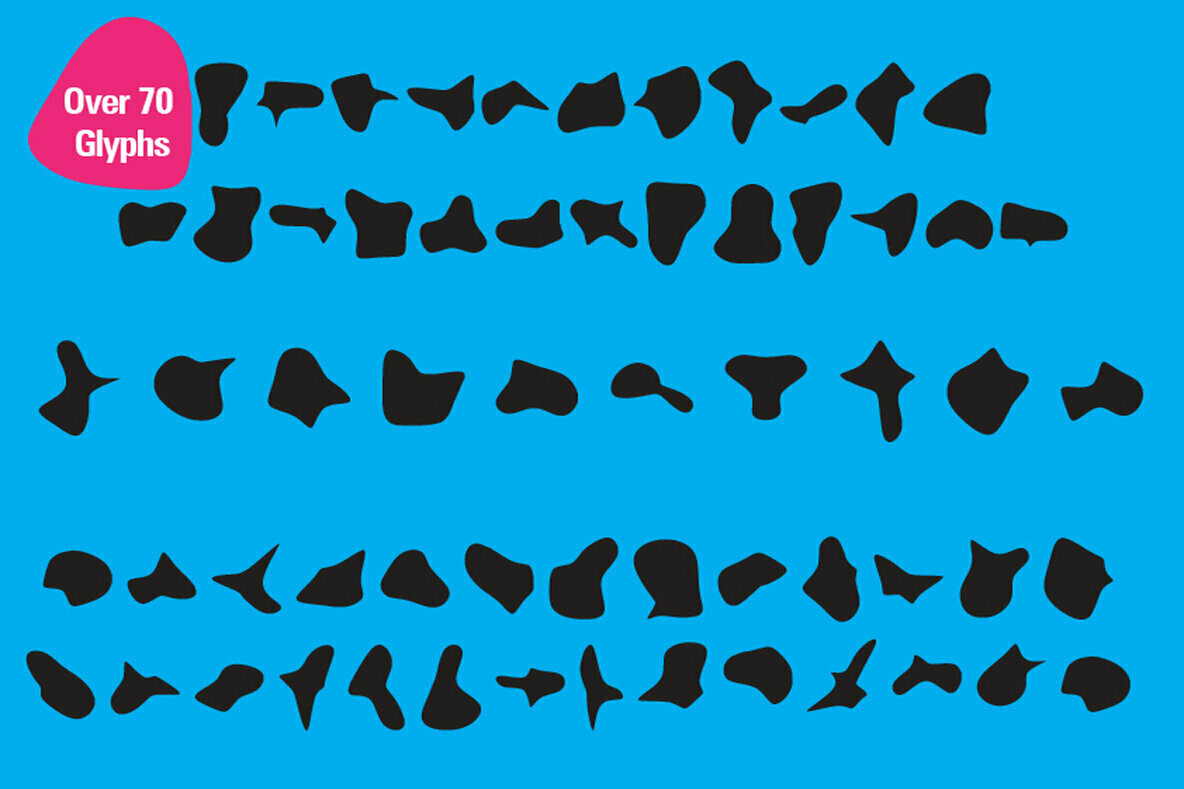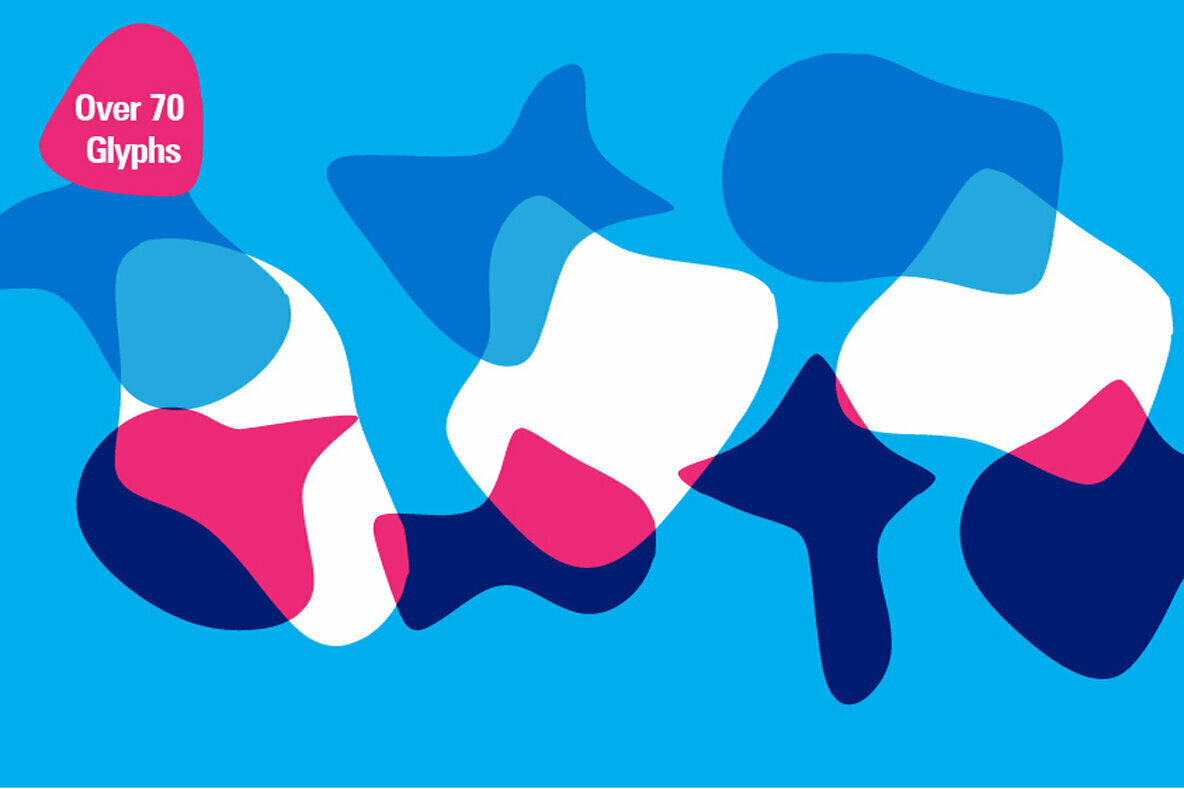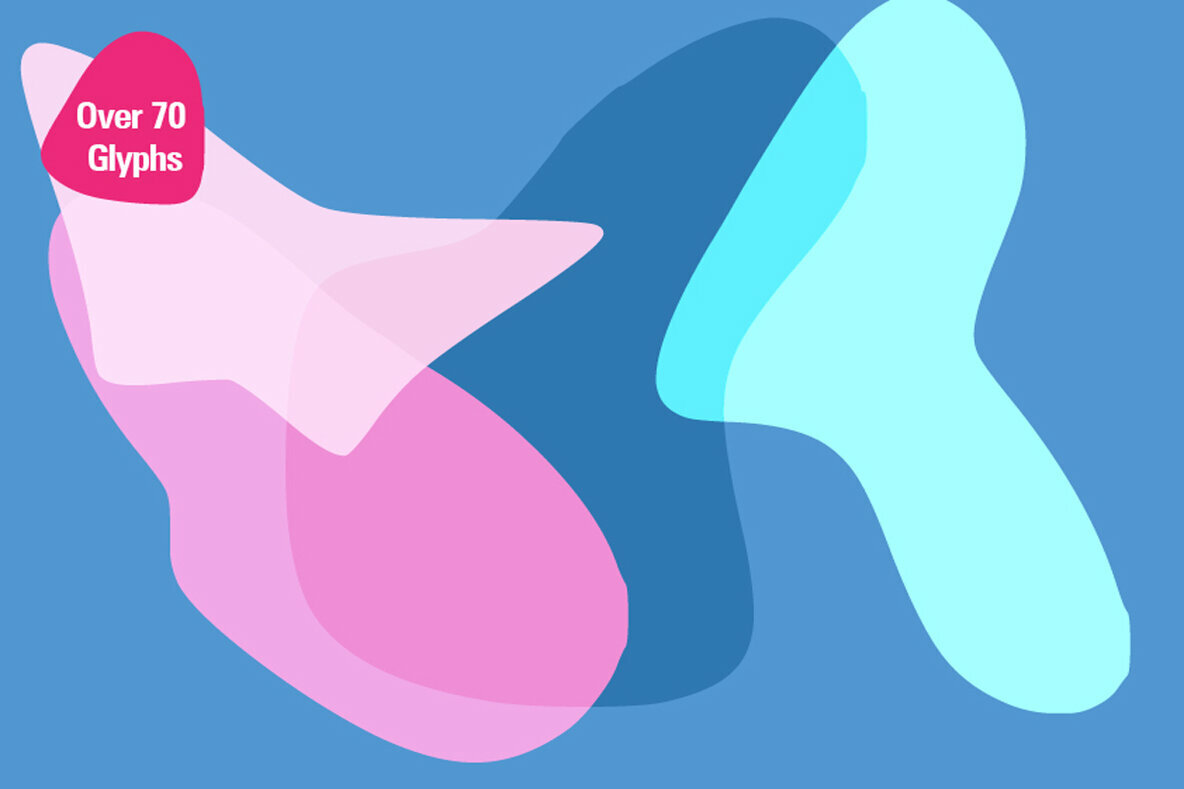
Random Blobs 2 Font
Random Blobs 2
Random Blobs 2 is a set of glyph shapes. Like is counterpart (Random Blobs 1) the elements found in this dingbat pack are a little more sharper and pointed in style. Take your crafting projects to the next level with these amazing dingbats!